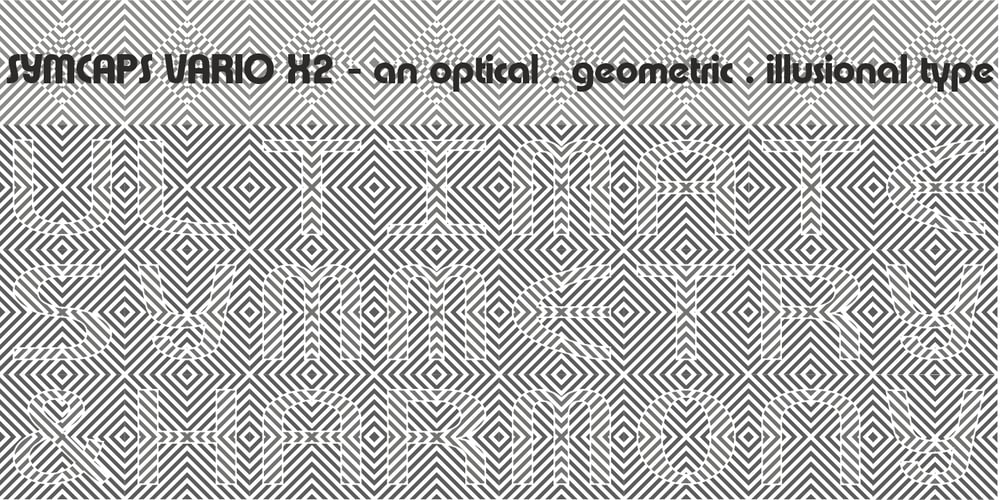
Symcaps Vario X2
Symcaps Vario X2 font
Symcaps Vario X2 Font Family was designed by Denise Koehler and published by Deniart Systems. Symcaps Vario X2 contains 1 styles and family package options. The Symcaps Vario X2 typeface is a monospaced design created to give optically symmetrical message forms.